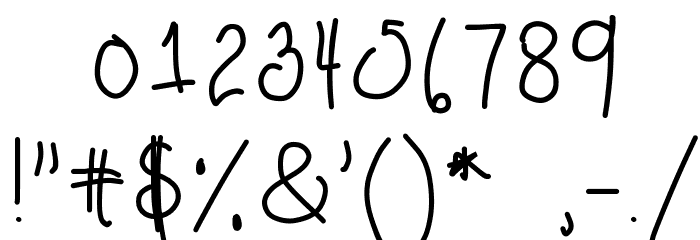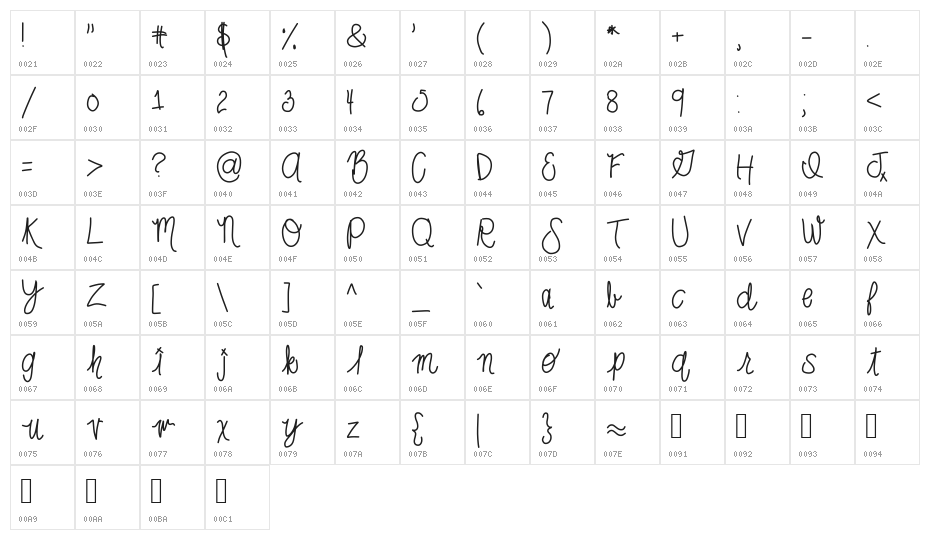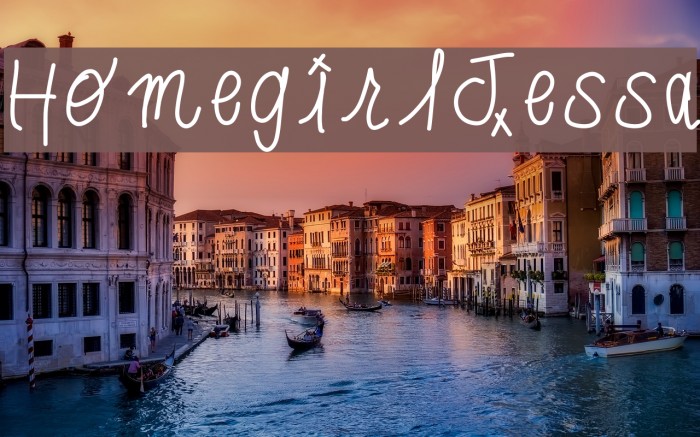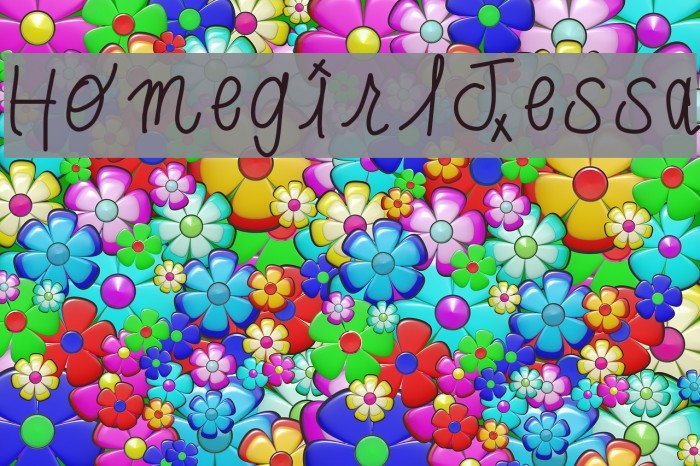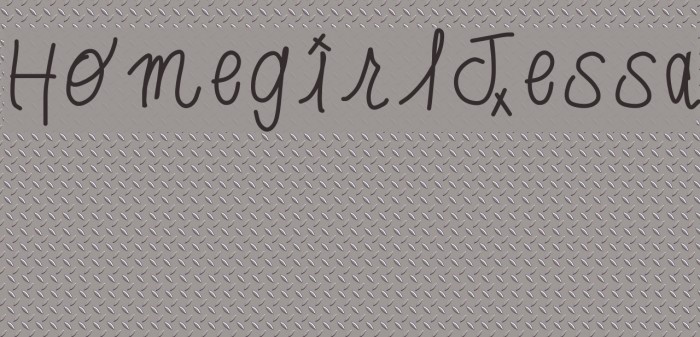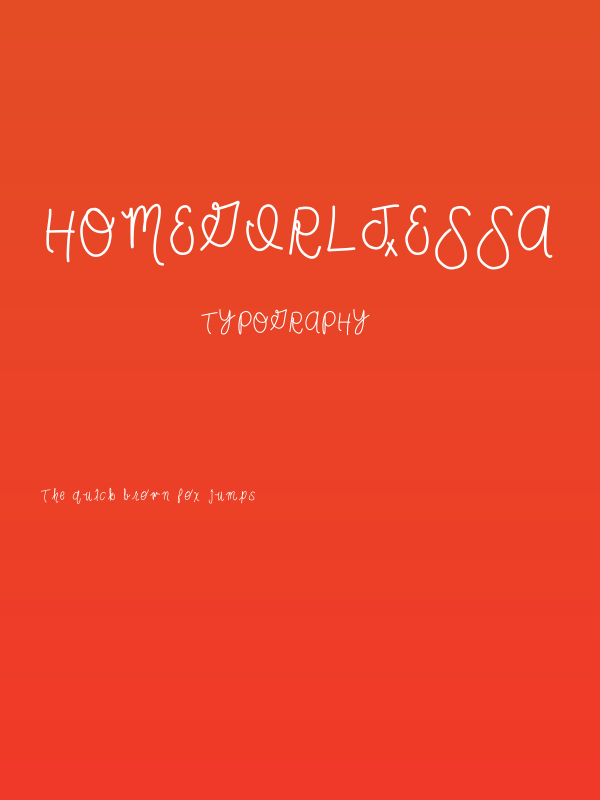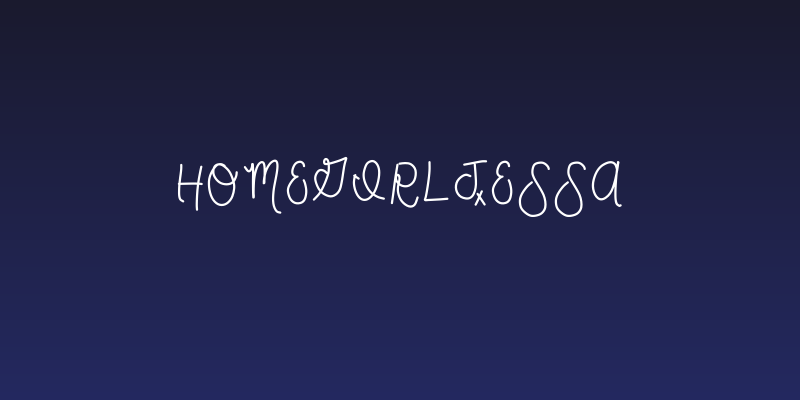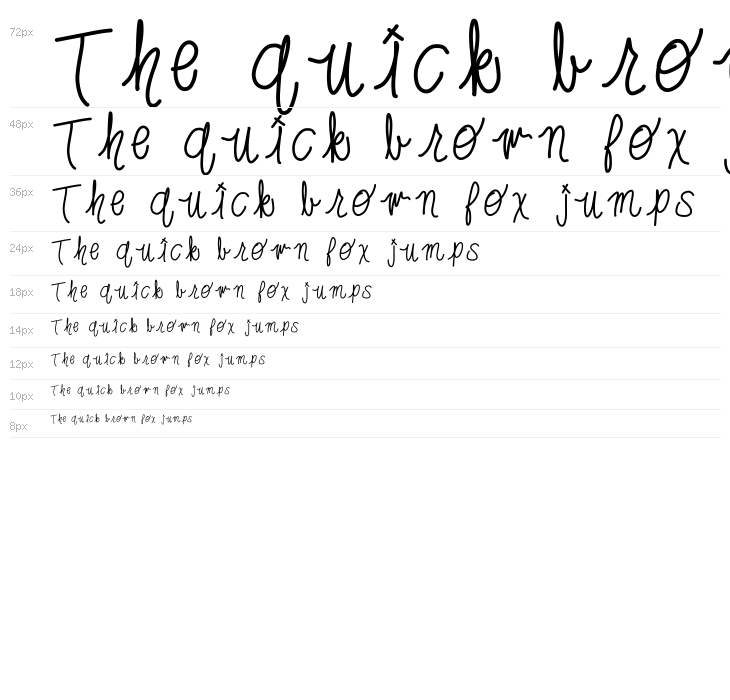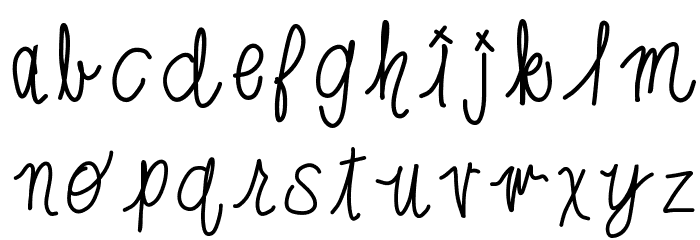
HomegirlJessa Font
HomegirlJessa Description
This font features a playful and casual handwritten style, characterized by its fluid and slightly irregular strokes. The uppercase letters exhibit a mix of rounded and angular forms, giving them a unique and whimsical appearance. The lowercase letters maintain a consistent flow, enhancing the font's approachable and friendly vibe. Numbers and special characters are designed to complement the overall style, ensuring a cohesive look across all elements. The font's informal nature makes it ideal for projects that require a personal touch or a relaxed atmosphere.